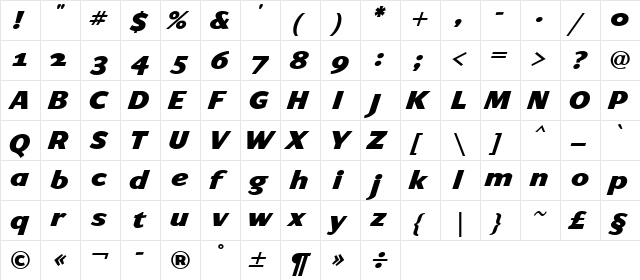
ArtemiusSans SN Black TT Regular Italic
Design Context for ArtemiusSans SN Black TT Typeface
ArtemiusSans SN Black TT is a composed and adaptable typeface that performs quietly and consistently across a wide range of design contexts. The dynamic lean of this cut emphasises speed and emphasis in any layout.
Pro Tip: Use ArtemiusSans SN Black TT for emphasis, pull quotes, and subheadings where its slanted energy can add rhythm to the layout.